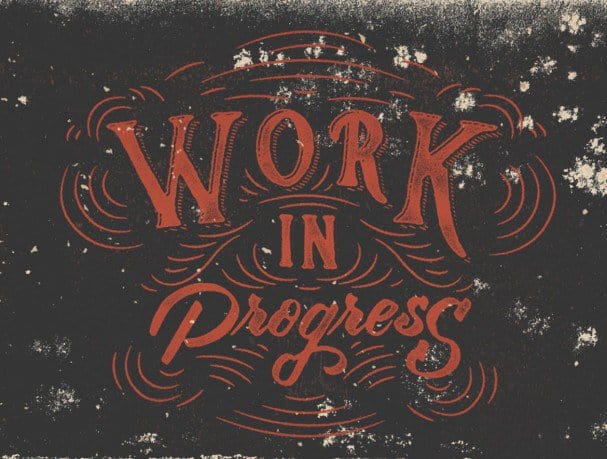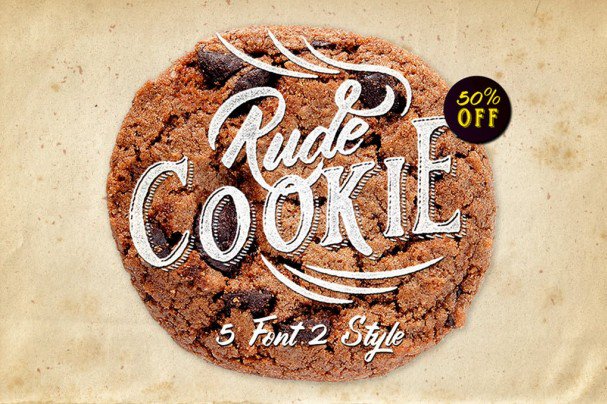
Rude Cookie Layer Font
Rude Cookie Layer Font is available right here within the TTF file format. That is famous for its bold and italic function and it’s far much available for free. It‚Äôs some particular greater wild youngster font. Collectively with each day, moderate, and formidable alternatives, it is an extremely good choice for a totally specific document look.